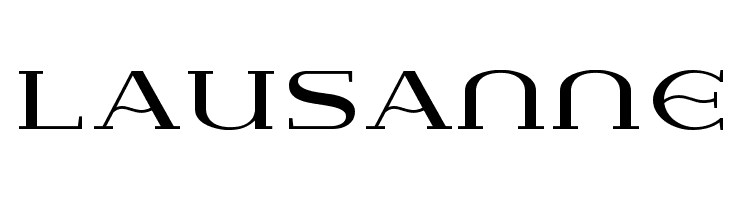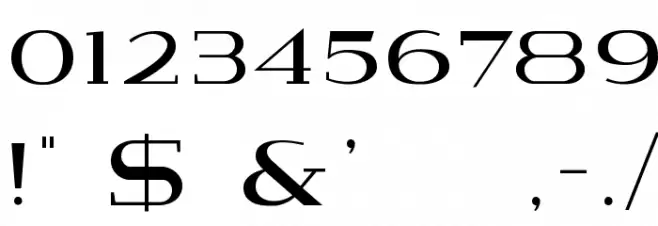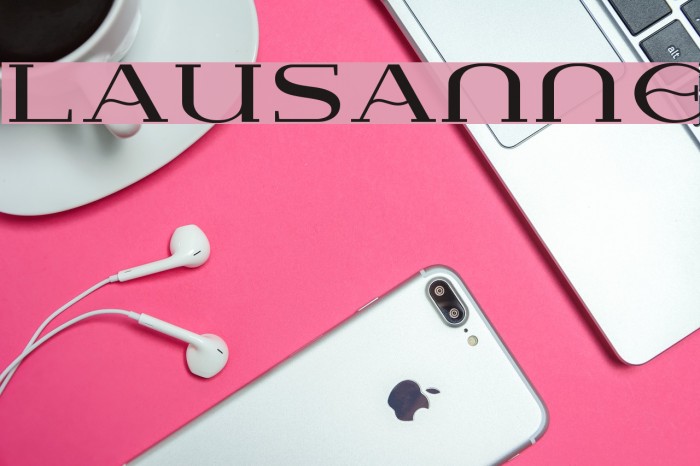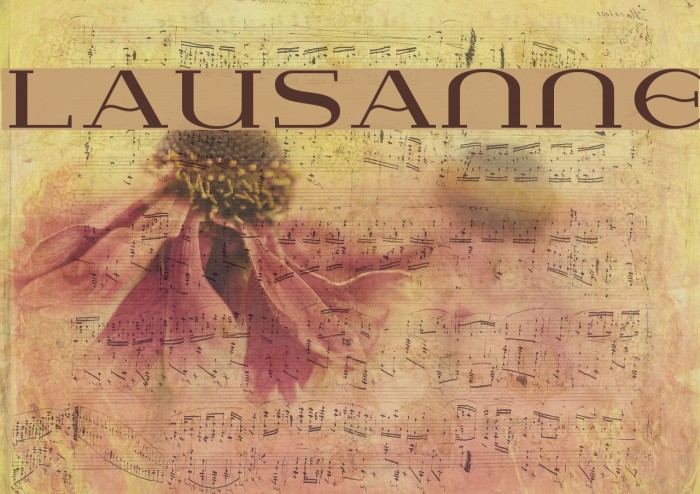
Lausanne Font
Lausanne Description
This font features a modern and elegant design with a distinct geometric influence. The uppercase letters are characterized by clean lines and sharp angles, giving them a sophisticated and contemporary appearance. The lowercase letters maintain a consistent style, with a slight contrast in stroke thickness that adds to the overall aesthetic. The numerals are well-proportioned and align seamlessly with the alphabet, ensuring readability and visual harmony. Special characters are thoughtfully designed to complement the font's style, making it versatile for various applications.
A modern, geometric font with clean lines and elegant style from Serif fonts.